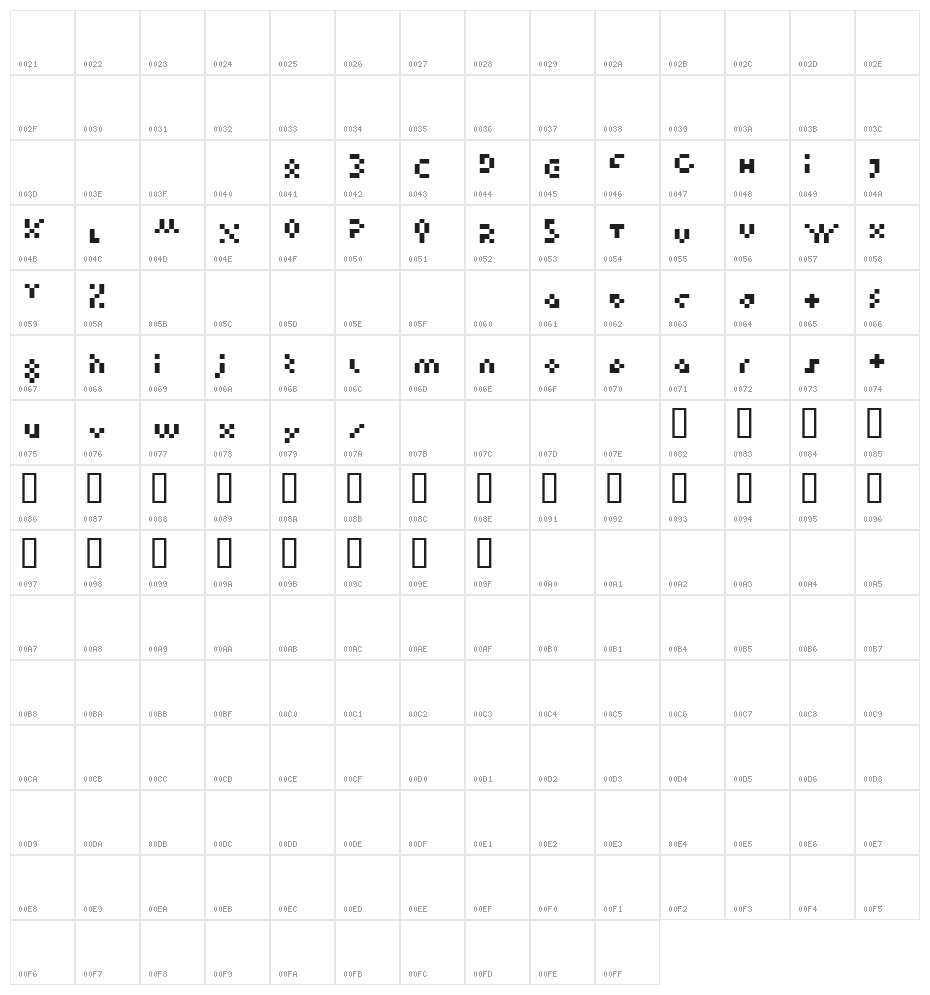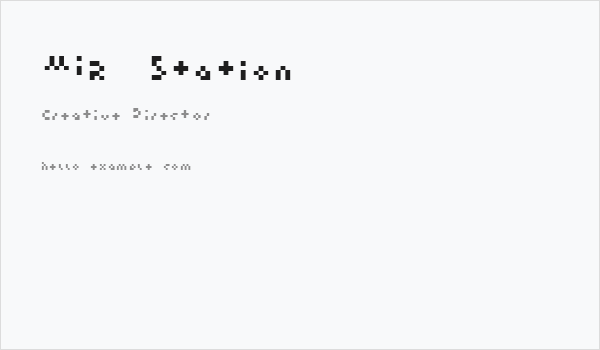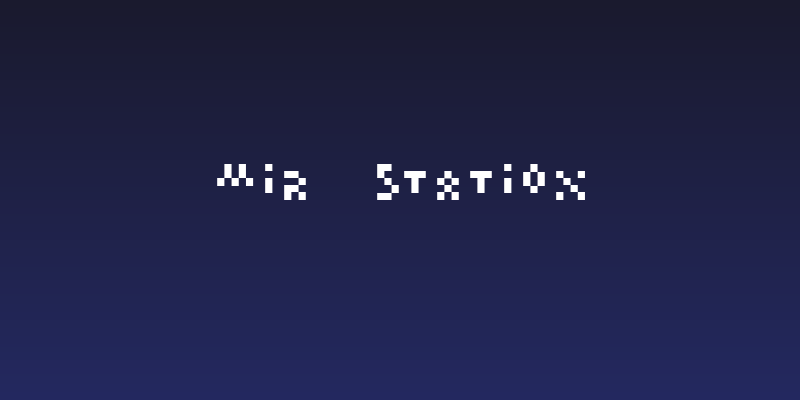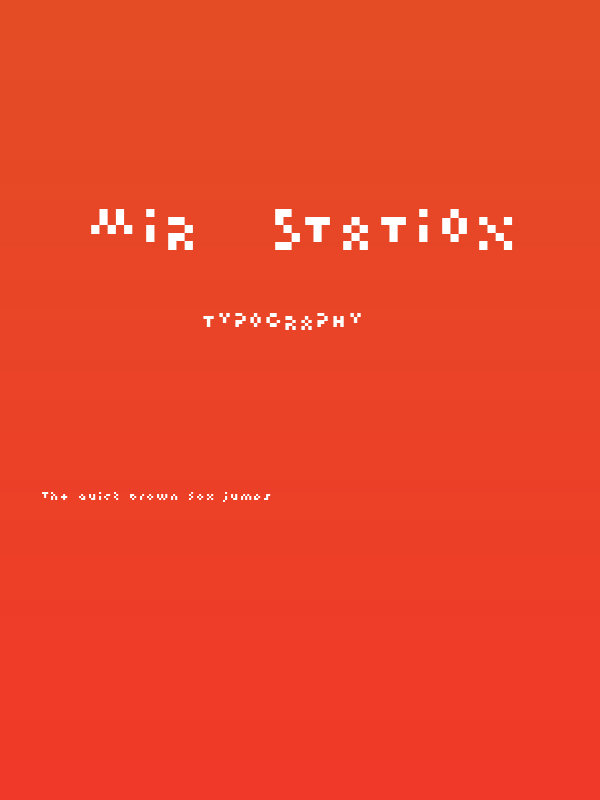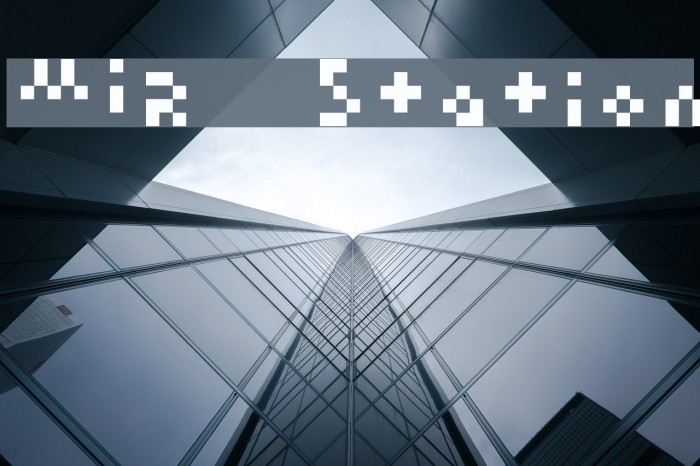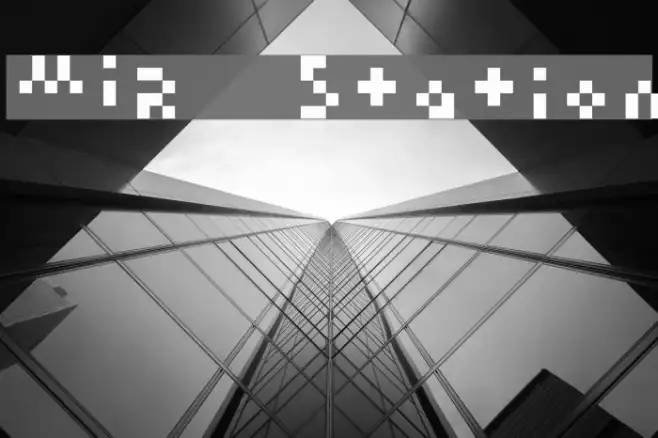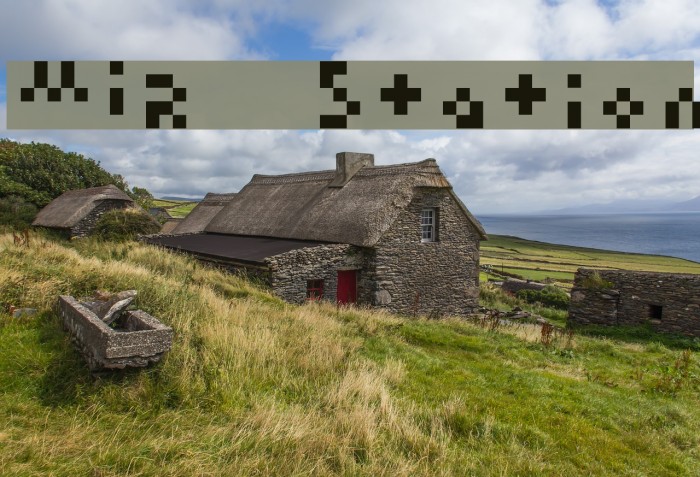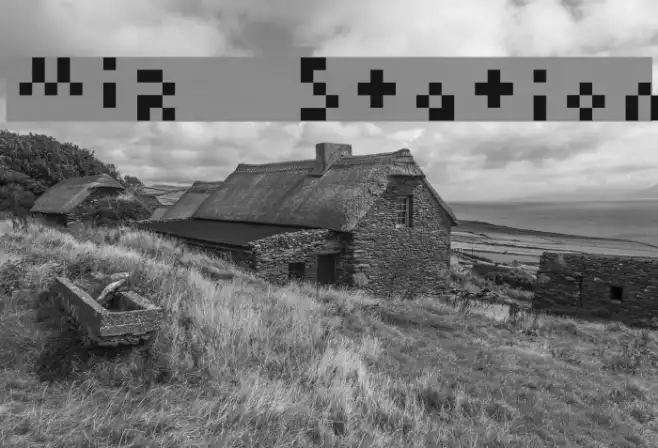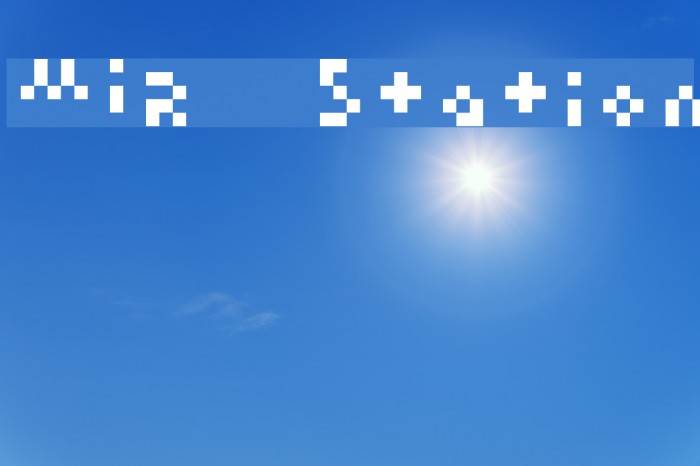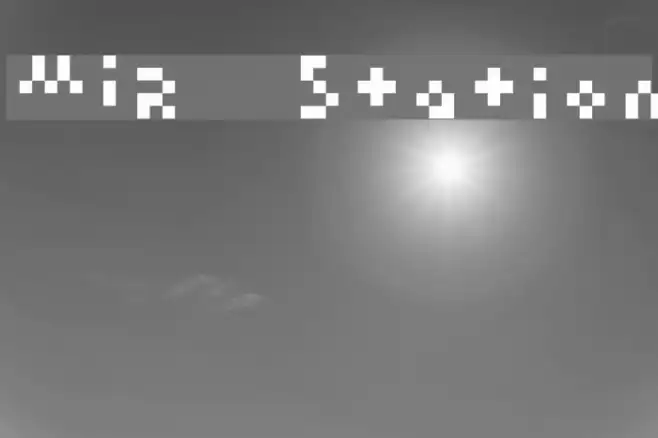
MIR Station Font
MIR Station Description
This font features a pixelated, blocky design reminiscent of early digital displays and retro video games. Each character is constructed from a grid of square pixels, giving it a distinctly digital and geometric appearance. The uniformity in pixel size across all characters creates a cohesive and consistent look. The font lacks curves, relying instead on right angles and straight lines, which enhances its technical and mechanical feel. Its simplicity and clarity make it highly legible, even at smaller sizes. The font's nostalgic aesthetic is ideal for projects that aim to evoke a sense of vintage computing or gaming.
| Use Case | Logos, Headlines, Digital Art |
| Proposed Projects | Ideal for retro video game designs, digital art projects, tech-themed posters, and any creative work that seeks to capture the essence of early computing. |